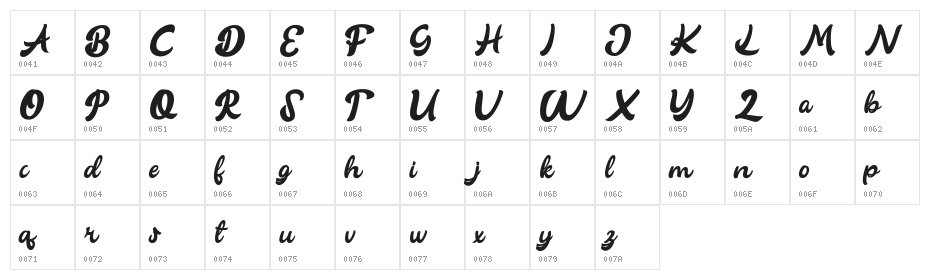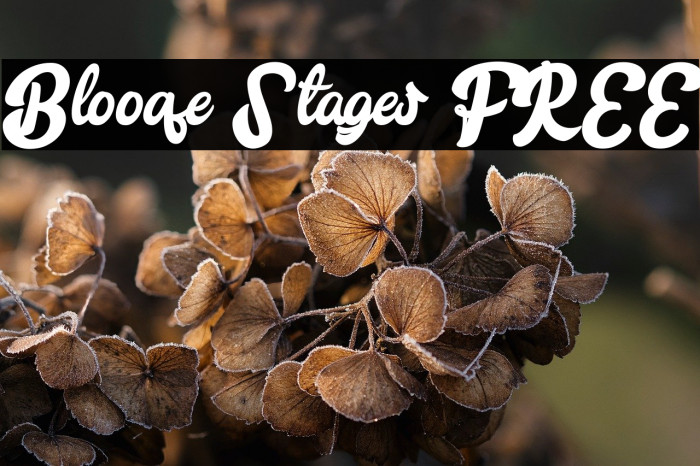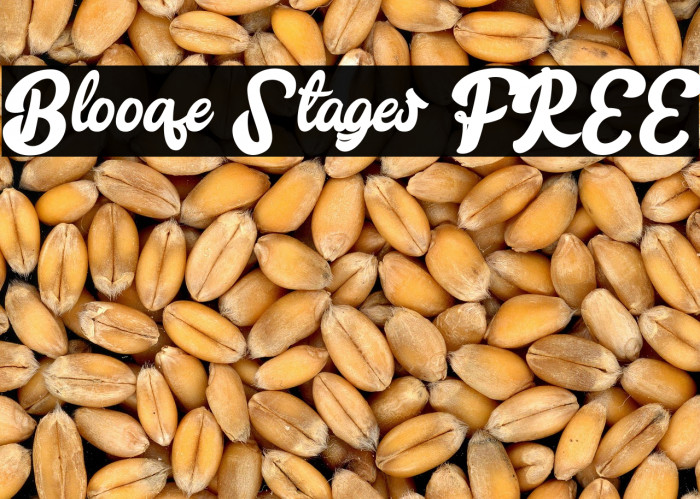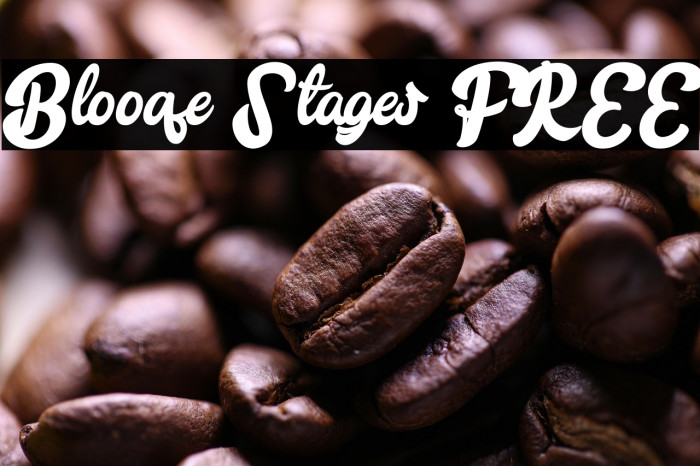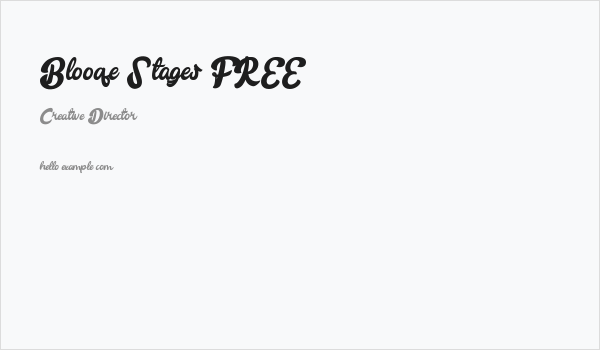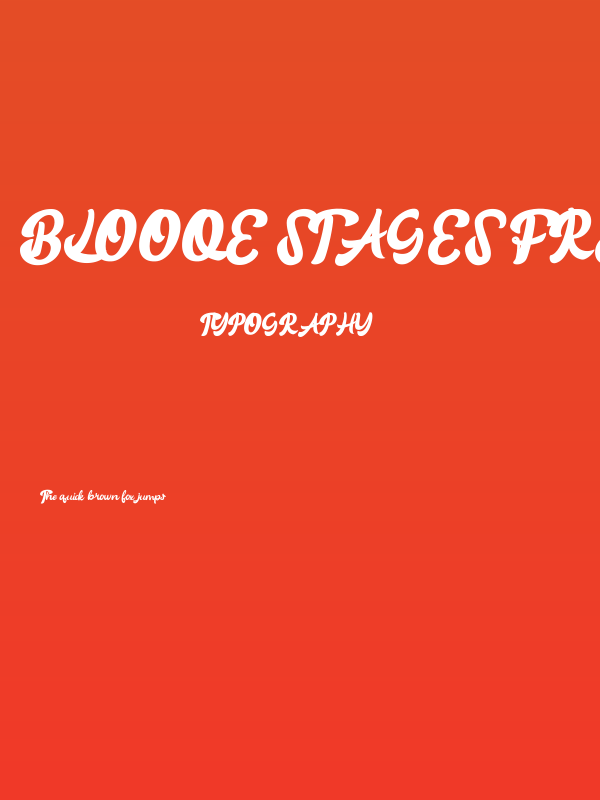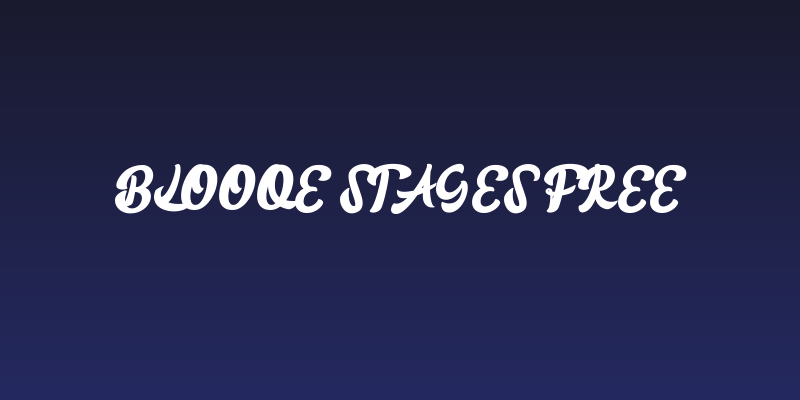
Blooqe Stages FREE Font
Blooqe Stages FREE Description
This font features a bold, cursive style with a flowing, handwritten appearance. The characters are connected, creating a seamless and elegant look. The uppercase letters are slightly larger and more pronounced, while the lowercase letters maintain a consistent flow. The strokes are thick, providing a strong presence and making the text highly legible. The font exudes a sense of sophistication and creativity, making it suitable for various artistic and decorative applications.
| Proposed Projects | Ideal for wedding invitations, greeting cards, logos, and branding materials that require a personal touch. |